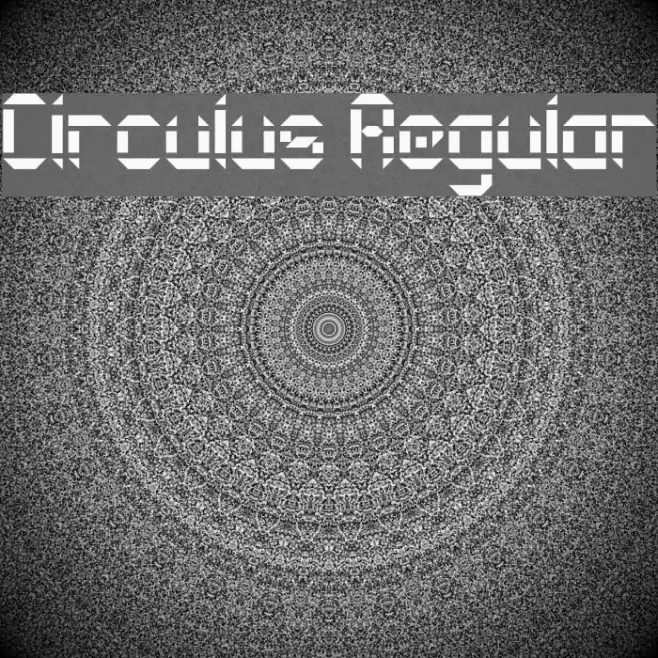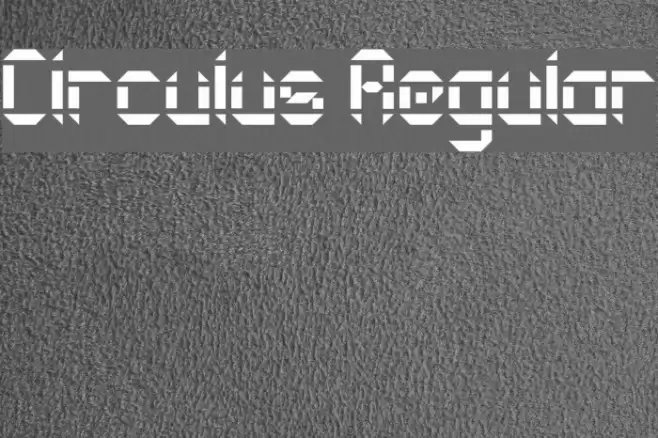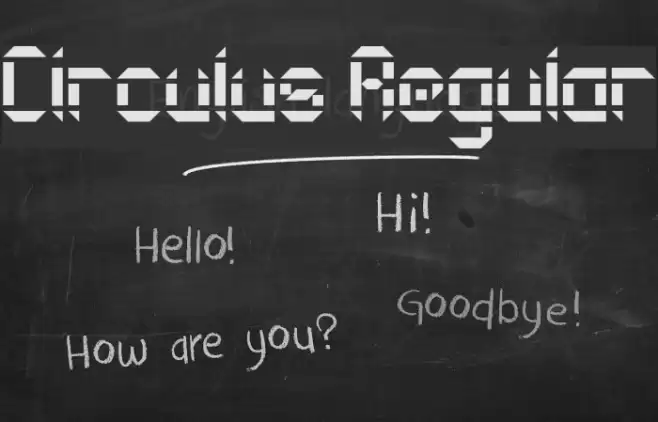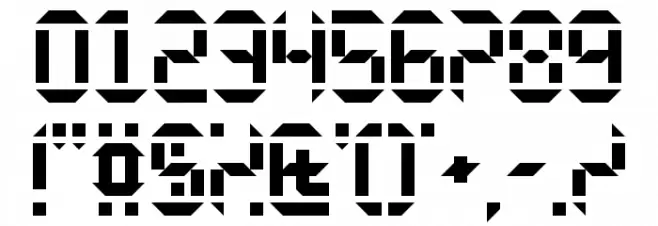
Circulus Regular Font
Circulus Regular Description
This font features a highly geometric and angular design, characterized by its bold, block-like appearance. Each character is constructed from a series of straight lines and sharp angles, creating a futuristic and digital aesthetic. The letters are uniform in width, giving the font a monospaced feel, although it is not strictly monospaced. The uppercase and lowercase letters maintain a consistent style, with the lowercase being slightly smaller in height. Numbers and special characters follow the same design principles, ensuring a cohesive look across all glyphs. The font's unique style makes it stand out, suitable for projects that require a modern and edgy appearance.
A bold, geometric font with a futuristic and digital aesthetic from Uncategorized fonts.